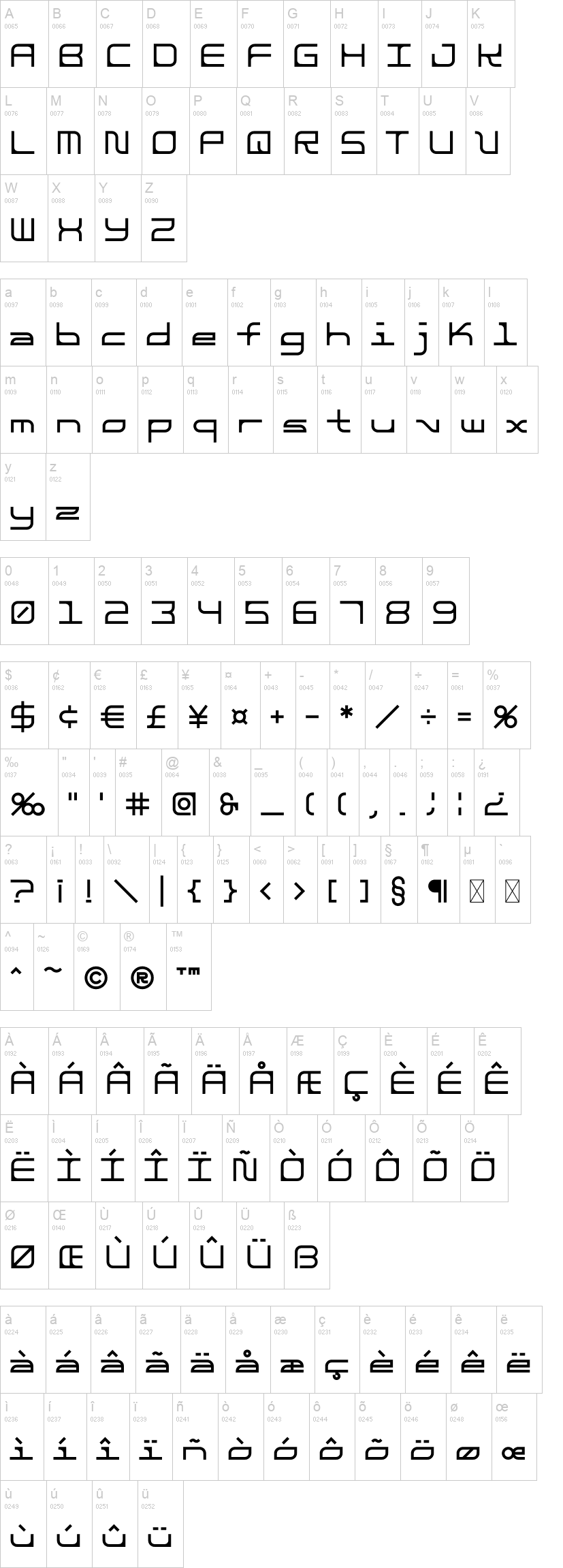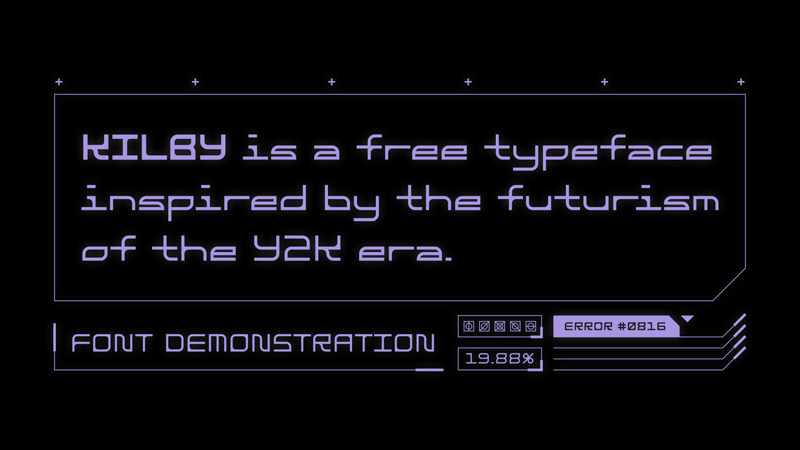
KILBY-Bold.otfNote of the authorKILBY was inspired by the technology of the new millennium and the futurism of the Y2K era. Free to use in both personal and commercial projects. Comes in two weights.